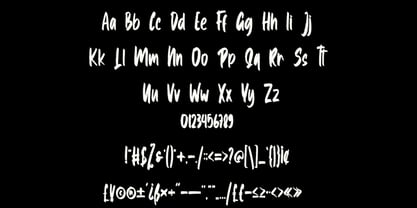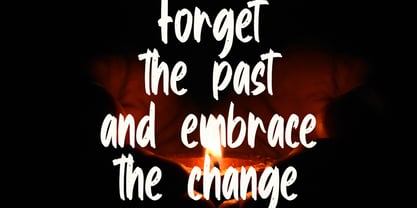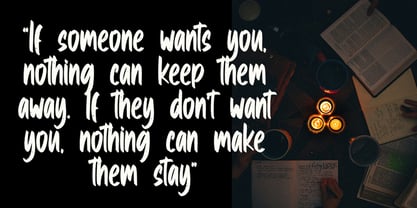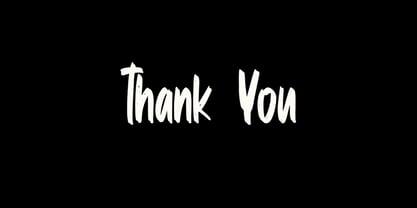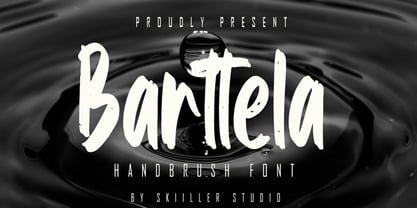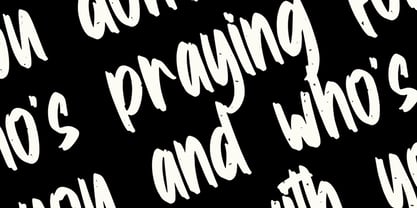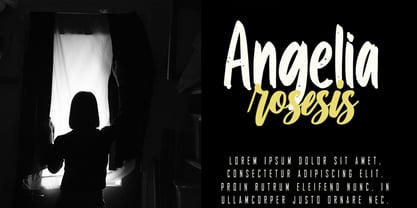
Barttela
by Skiiller Studio
The Barttela Font Family was designed by Irfan Mahmudin and published by Skiiller Studio. Barttela contains 1 styles.
Barttela is a bold and expressive handbrush font designed to bring raw energy and personality into your designs. With its natural brush strokes and slightly rough edges, this font delivers an authentic handwritten feel that works perfectly for posters, branding, logos, apparel, quotes, social media, album covers, and creative headlines. Bartela combines a strong visual impact with organic character, making it ideal for modern, urban, and artistic projects that need a confident and dynamic typographic style.
Designers: Irfan Mahmudin
Publisher: Skiiller Studio
Foundry: Skiiller Studio
Design Owner: Skiiller Studio